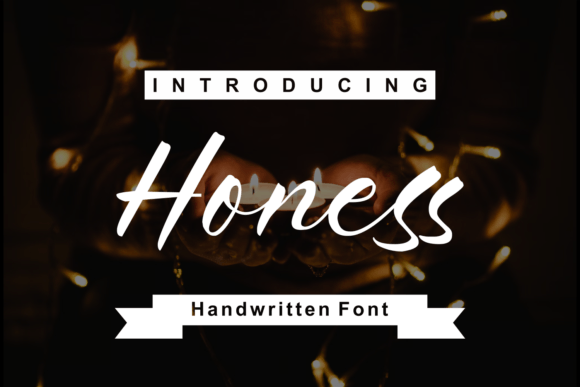
Honess Font: The Key to Unlocking Your Creative Brilliance
In a world of digital expression, your online signature holds the power to captivate and connect. Introducing Honess Font, the ultimate script font designed to elevate your digital presence with a touch of sophistication and charm.
Crafted with meticulous attention to detail, Honess is a luxurious handwritten script font reminiscent of classic elegance. Its thick, bold strokes exude a timeless beauty, while its graceful curves add a touch of playfulness and warmth. Whether you're a craft artist seeking to transform your work into breathtaking masterpieces or a graphic designer searching for a font that embodies charm and personality, Honess is your perfect match.
With Honess, you'll discover a font that effortlessly captures the essence of creativity and individuality. Its versatile nature makes it suitable for a wide range of applications, from elegant wedding invitations and heartfelt letters to eye-catching logos and social media posts. Let Honess be your creative companion, guiding you towards crafting digital masterpieces that leave a lasting impression.
So, unleash your imagination and embrace the possibilities with Honess Font. Let your words dance across the screen, captivating audiences with their timeless beauty and charm. Elevate your online signature and embark on a creative journey where your ideas take center stage.